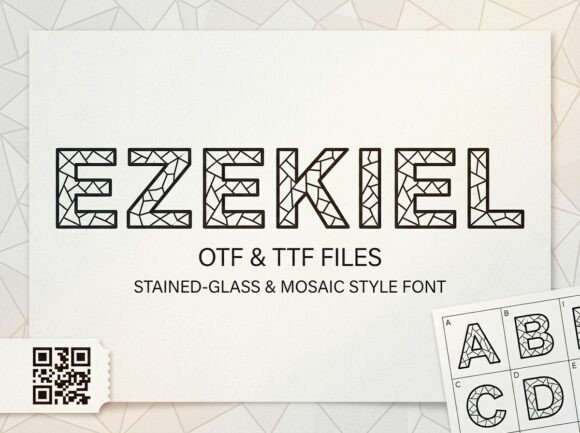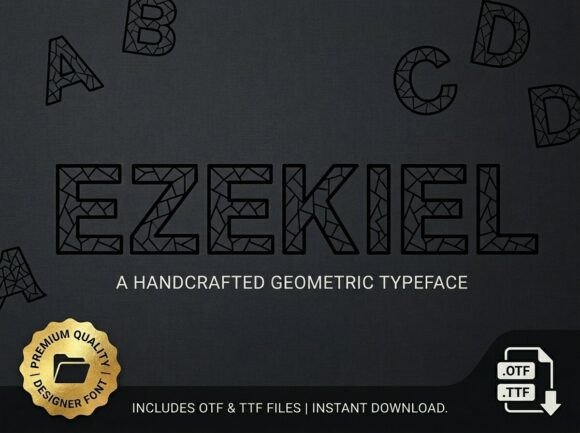
Introducing Ezekiel: The Geometric Mosaic Display Font Redefining Structure
In the world of typography, a new star has emerged. Meet Ezekiel, a revolutionary geometric mosaic display font that’s poised to transform the way we approach high-impact visual storytelling. This innovative typeface is specifically designed to make a bold statement, boasting a unique blend of bold, blocky letterforms and an intricate “shattered-glass” or mosaic pattern. The result is a striking architectural texture that’s sure to capture the attention of designers, crafters, and anyone looking to elevate their visual game.
The Inspiration Behind Ezekiel
Ezekiel’s design is rooted in the principles of brutalism, a style characterized by its raw, unapologetic, and functional approach. The font’s creator drew inspiration from the brutalist architectural movement, which emphasizes honesty and transparency in building design. By translating these principles into a typographic context, Ezekiel embodies a “brutalist-chic” aesthetic that’s both modern and thought-provoking.
Key Features of Ezekiel
So, what sets Ezekiel apart from other display fonts on the market? Here are some of its key features:
- Bold, blocky letterforms: Ezekiel’s letterforms are designed to make a statement. Their bold, blocky shape creates a sense of solidity and permanence, making them perfect for headlines, titles, and other display text.
- Intricate “shattered-glass” or mosaic pattern: The font’s unique mosaic pattern adds a layer of depth and visual interest to each letterform. This intricate design creates a striking architectural texture that’s sure to capture the eye.
- High-contrast silhouette: Ezekiel’s high-contrast silhouette ensures that each letterform stands out, even at smaller sizes. This makes it an excellent choice for use in a variety of contexts, from posters and flyers to social media headers and exhibition branding.
Use Cases for Ezekiel
Ezekiel’s versatility and striking design make it an excellent choice for a wide range of applications. Here are some of the ideal use cases for this innovative font:
- Modern art exhibition branding: Ezekiel’s bold, architectural texture makes it a natural fit for modern art exhibitions, installations, and showcases.
- Independent architecture studio logos: The font’s brutalist aesthetic and geometric shape make it an excellent choice for architecture studios looking to establish a strong, distinctive brand identity.
- Underground music posters: Ezekiel’s bold, attention-grabbing design makes it perfect for promoting underground music events, concerts, and festivals.
- High-energy “urban-conceptual” social media headers: The font’s striking texture and modern aesthetic make it an excellent choice for social media headers, particularly for urban-conceptual and streetwear brands.
Tips for Working with Ezekiel
To get the most out of Ezekiel, here are some tips for working with this innovative font:
- Experiment with different sizes and weights: Ezekiel’s bold design works well at a variety of sizes, from large display text to smaller body text. Experiment with different weights and sizes to find the perfect balance for your project.
- Pair with complementary fonts: Ezekiel’s bold, geometric shape makes it an excellent choice for pairing with complementary fonts that add contrast and visual interest.
- Play with texture and pattern: The font’s intricate mosaic pattern offers a wealth of creative possibilities. Experiment with different textures and patterns to add depth and visual interest to your design.
Ezekiel is a game-changing geometric mosaic display font that’s poised to revolutionize the world of typography. With its bold, blocky letterforms, intricate “shattered-glass” or mosaic pattern, and high-contrast silhouette, this innovative font is the perfect choice for designers, crafters, and anyone looking to elevate their visual storytelling. Whether you’re working on modern art exhibition branding, independent architecture studio logos, underground music posters, or high-energy social media headers, Ezekiel is the premier choice for making a bold statement.